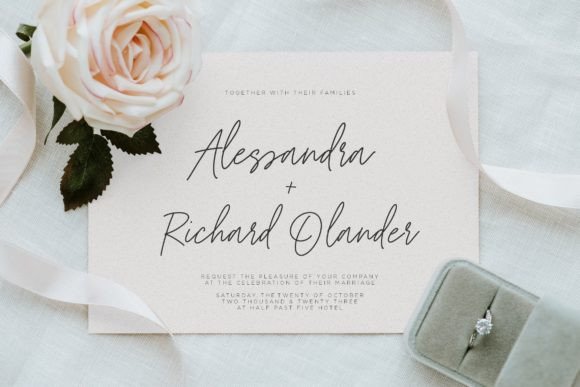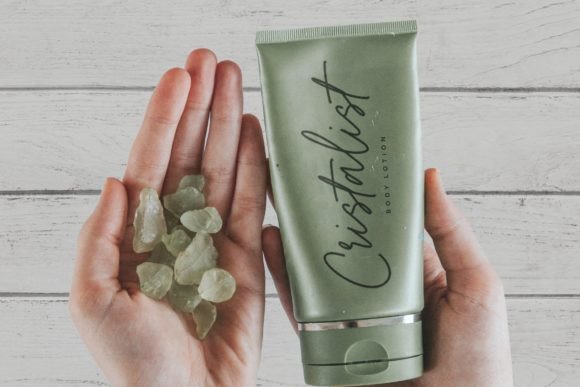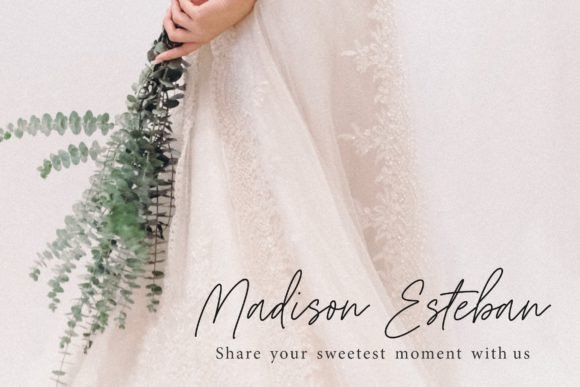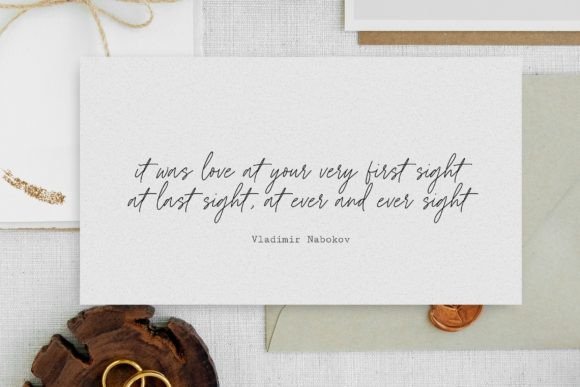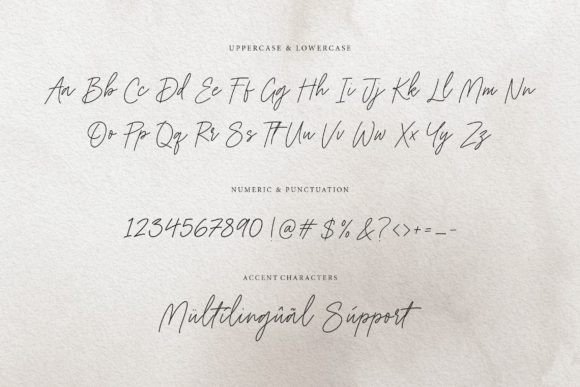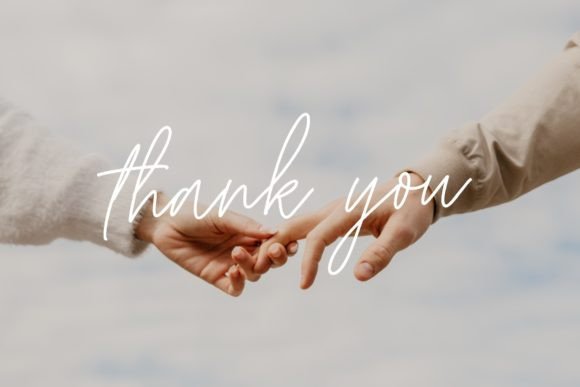
Bastonica Font: The Modern Monoline Handwritten Script Font for Every Occasion
In the world of typography, fonts play a crucial role in conveying emotions, setting tone, and creating visual appeal. For designers, crafters, and DIY enthusiasts, finding the perfect font can make all the difference in their creative projects. Introducing Bastonica, a modern, monoline handwritten script font that’s taking the design community by storm. In this article, we’ll dive into the world of Bastonica, exploring its features, uses, and benefits, and why it’s poised to become your go-to font for every occasion.
What is Bastonica Font?
Bastonica is a modern, monoline handwritten script font that exudes elegance, simplicity, and versatility. Its clean lines, flowing curves, and connected letters create a beautiful, cohesive look that’s perfect for a wide range of applications. Whether you’re working on a digital design project, crafting a handmade card, or creating a presentation, Bastonica is the perfect choice for adding a touch of personality and sophistication.
Key Features of Bastonica Font
So, what makes Bastonica stand out from the crowd? Here are some of its key features:
- Monoline construction: Bastonica’s monoline design gives it a sleek, modern look that’s perfect for contemporary designs.
- Handwritten script: The font’s handwritten script style adds a touch of warmth and personality to any project.
- Connected letters: The connected letters in Bastonica create a beautiful, flowing look that’s perfect for words, phrases, and sentences.
- Clean and elegant: The font’s clean lines and elegant curves make it perfect for designs that require a touch of sophistication.
Uses for Bastonica Font
Bastonica’s versatility is one of its greatest strengths. Here are some of the many ways you can use this amazing font:
- Crafts: Use Bastonica to add a personal touch to your handmade crafts, such as cards, gift tags, and scrapbooking projects.
- Digital design: Bastonica is perfect for digital designs, including social media graphics, blog posts, and website headers.
- Presentations: Add a touch of elegance to your presentations with Bastonica’s clean, modern look.
- Greeting cards: Use Bastonica to create beautiful, handmade greeting cards for any occasion.
Benefits of Using Bastonica Font
So, why should you choose Bastonica for your next project? Here are some of the benefits of using this amazing font:
- Easy to read: Bastonica’s clean lines and simple design make it easy to read, even at small sizes.
- Versatile: The font’s versatility makes it perfect for a wide range of applications, from crafts to digital design.
- Time-saving: With Bastonica, you can create beautiful designs quickly and easily, saving you time and effort.
- Unique look: Bastonica’s unique look will help your designs stand out from the crowd and leave a lasting impression.
In conclusion, Bastonica is a modern, monoline handwritten script font that’s perfect for designers, crafters, and DIY enthusiasts. Its clean lines, flowing curves, and connected letters create a beautiful, cohesive look that’s perfect for a wide range of applications. With its versatility, ease of use, and unique look, Bastonica is poised to become your go-to font for every occasion. So why wait? Try Bastonica today and take your designs to the next level!